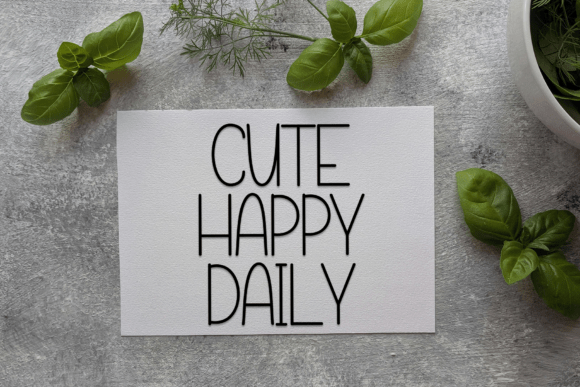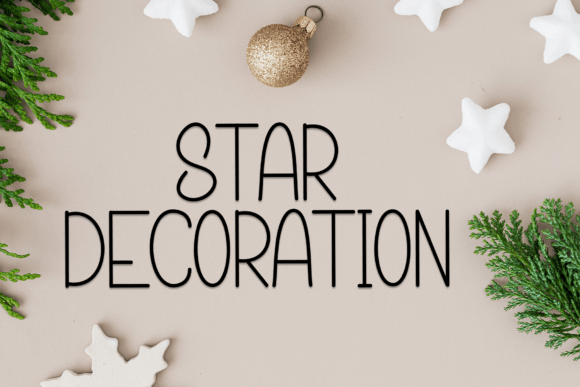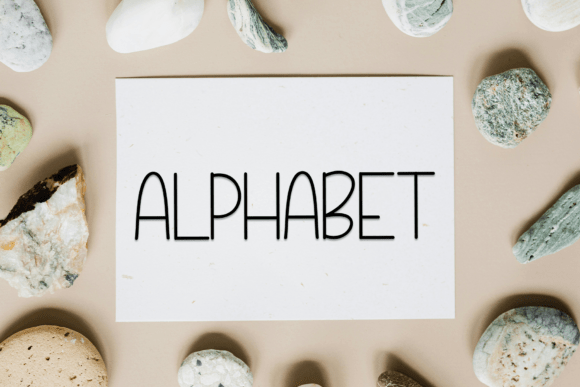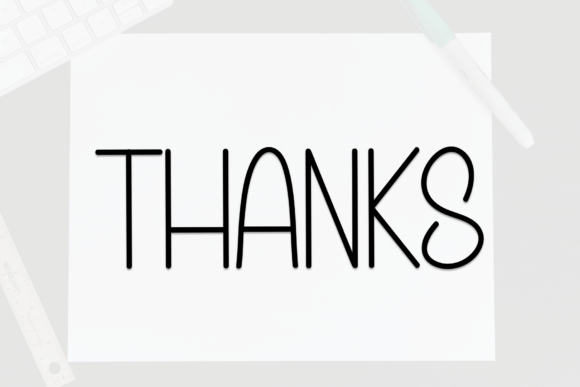
Introducing Christmas Quote Font: Add a Touch of Festive Flair to Your Designs
Are you looking for a font that embodies the spirit of Christmas? Look no further than Christmas Quote Font, a sweet and beautiful handwritten sans-serif font that’s perfect for adding a cozy accent to any design project. With its unique characters that dance along the baseline, this font is sure to bring a touch of festive flair to your designs.
What Makes Christmas Quote Font So Special?
Christmas Quote Font is a one-of-a-kind font that’s been carefully crafted to evoke the warmth and magic of the holiday season. Its handwritten sans-serif design gives it a friendly and approachable feel, making it perfect for use in a variety of design projects, from Christmas cards and invitations to holiday-themed crafts and decorations.
One of the standout features of Christmas Quote Font is its dancing characters. Unlike traditional fonts, where the characters sit on the baseline, Christmas Quote Font features characters that dance along the baseline, giving it a playful and whimsical feel. This unique design element adds a touch of personality to any design project, making it perfect for designers and crafters who want to create something truly special.
Christmas Quote Font is a versatile font that’s perfect for use in a variety of design projects. Whether you’re a professional designer or a crafter looking for a special font to use in your holiday projects, Christmas Quote Font is a great choice. Its clear and legible design makes it easy to read, while its unique dancing characters add a touch of personality and whimsy.
Designers will love using Christmas Quote Font to create festive holiday designs, such as Christmas cards, invitations, and flyers. The font’s playful design makes it perfect for use in children’s party invitations, holiday-themed crafts, and other fun and festive projects.
Crafters will also love using Christmas Quote Font to add a personal touch to their holiday crafts. Whether you’re making handmade Christmas cards, decorating holiday gift tags, or creating festive window clings, Christmas Quote Font is a great choice. Its easy-to-read design and playful characters make it perfect for use in a variety of craft projects.
Tips for Using Christmas Quote Font
- Use Christmas Quote Font to add a festive touch to your holiday designs. Its playful design makes it perfect for use in Christmas cards, invitations, and other holiday-themed projects.
- Experiment with different colors and textures to add depth and interest to your designs. Christmas Quote Font looks great in bold, bright colors, as well as more muted, pastel shades.
- Don’t be afraid to get creative with Christmas Quote Font. Its unique dancing characters make it perfect for use in a variety of design projects, from holiday-themed crafts to festive window clings.